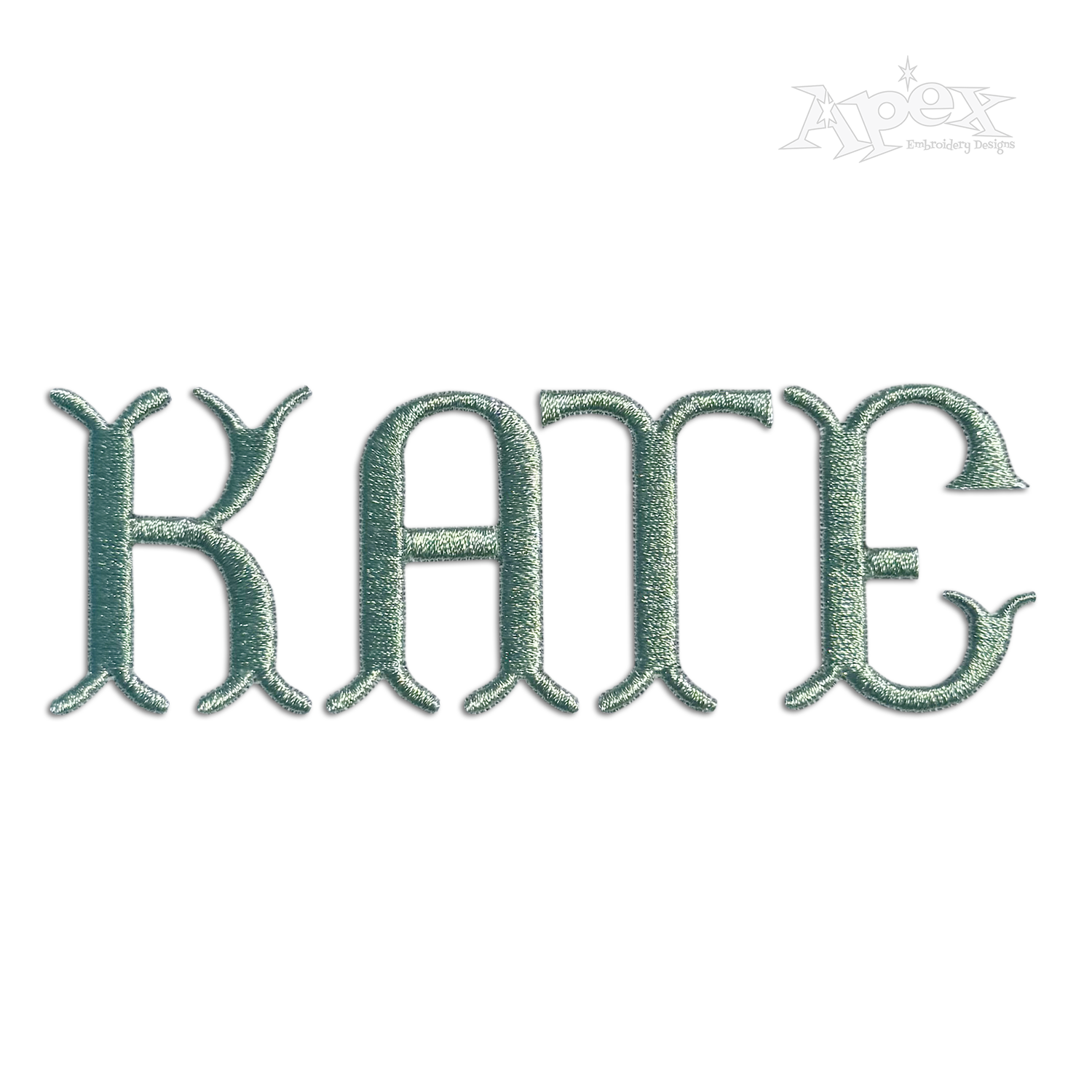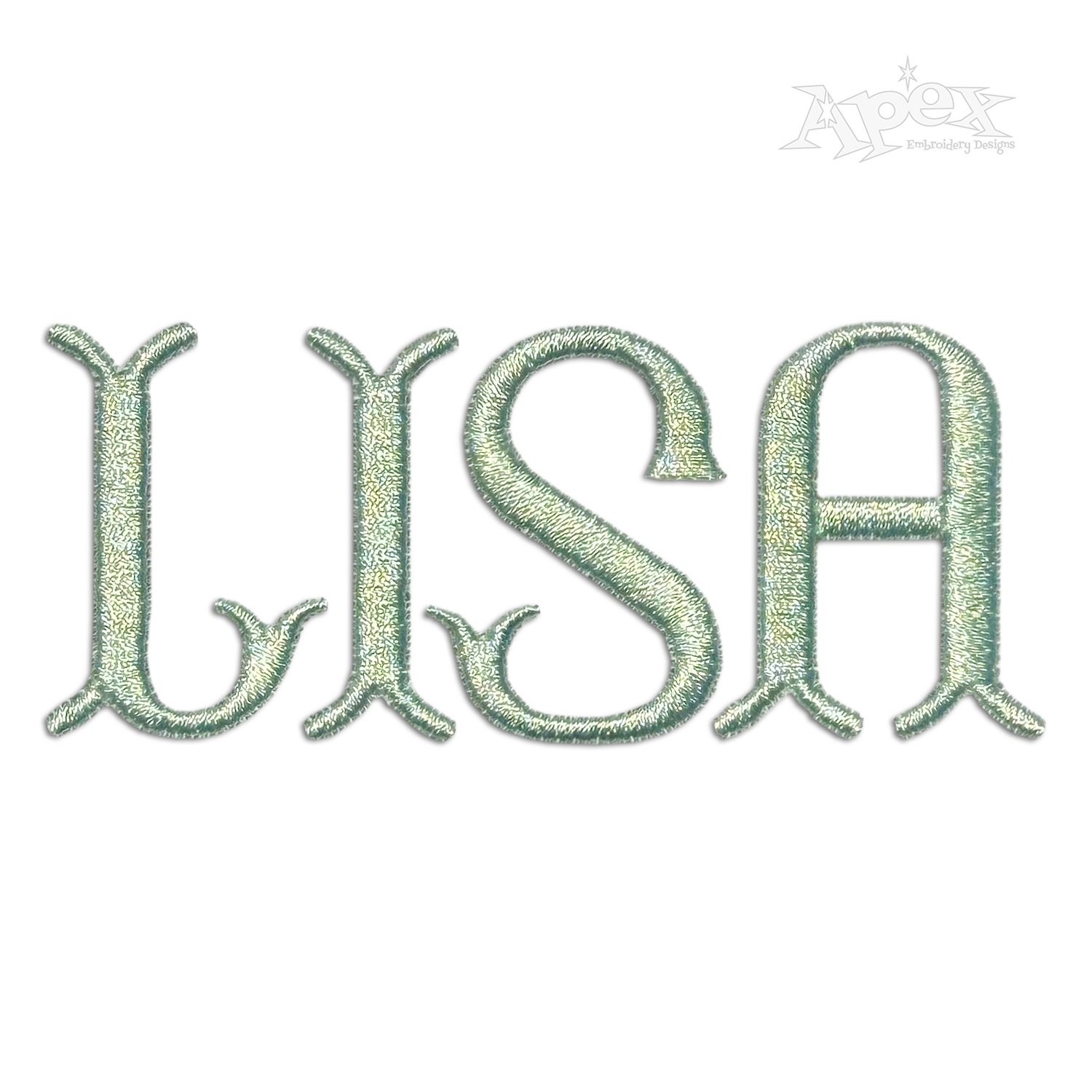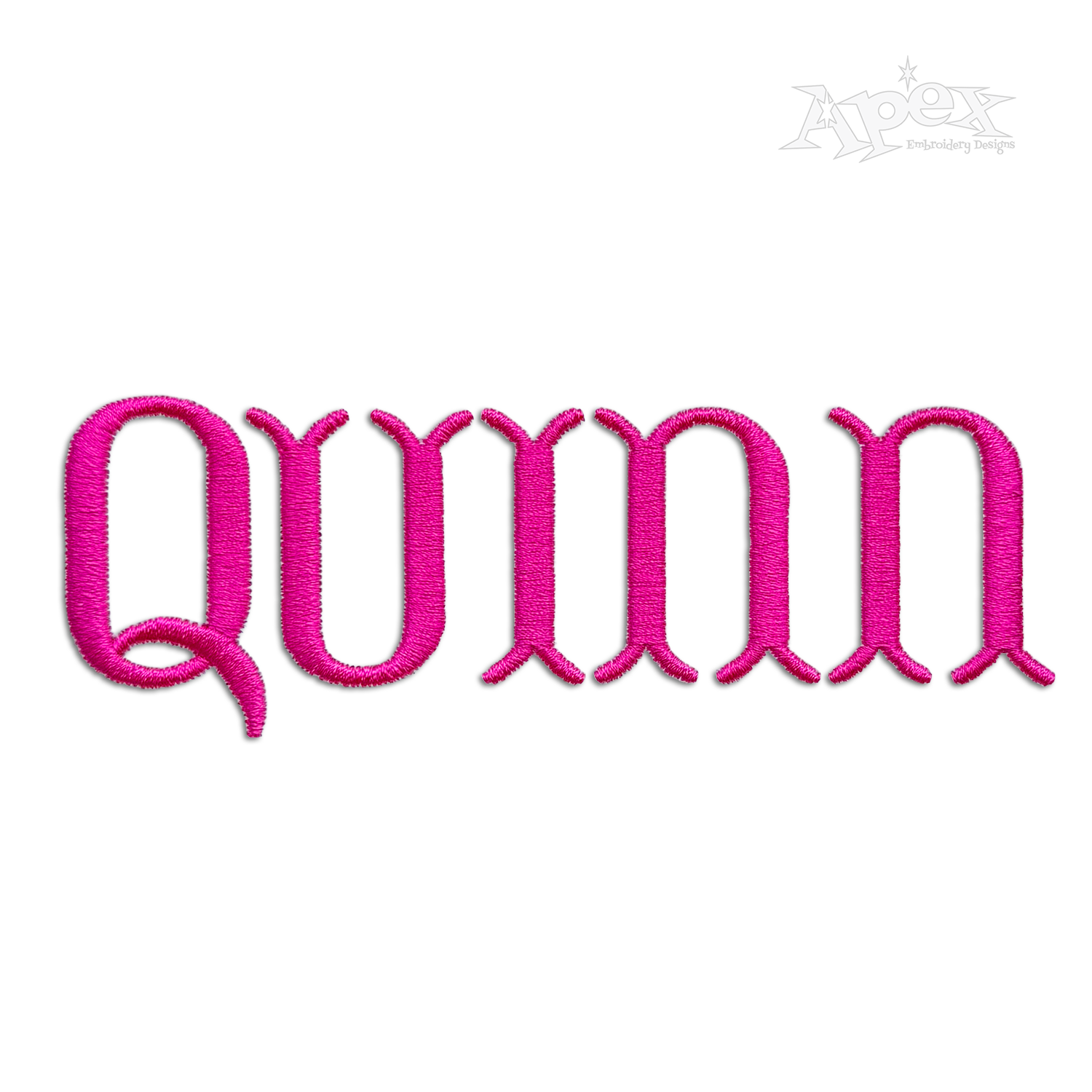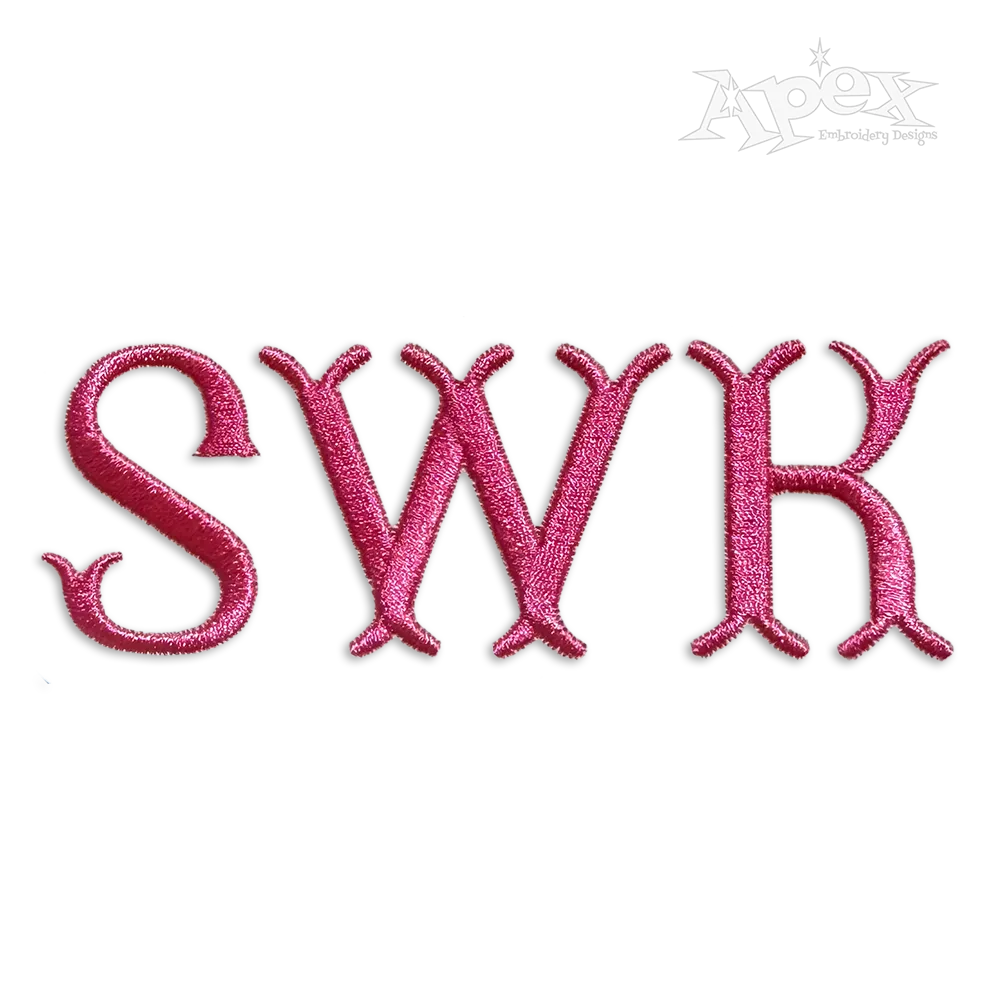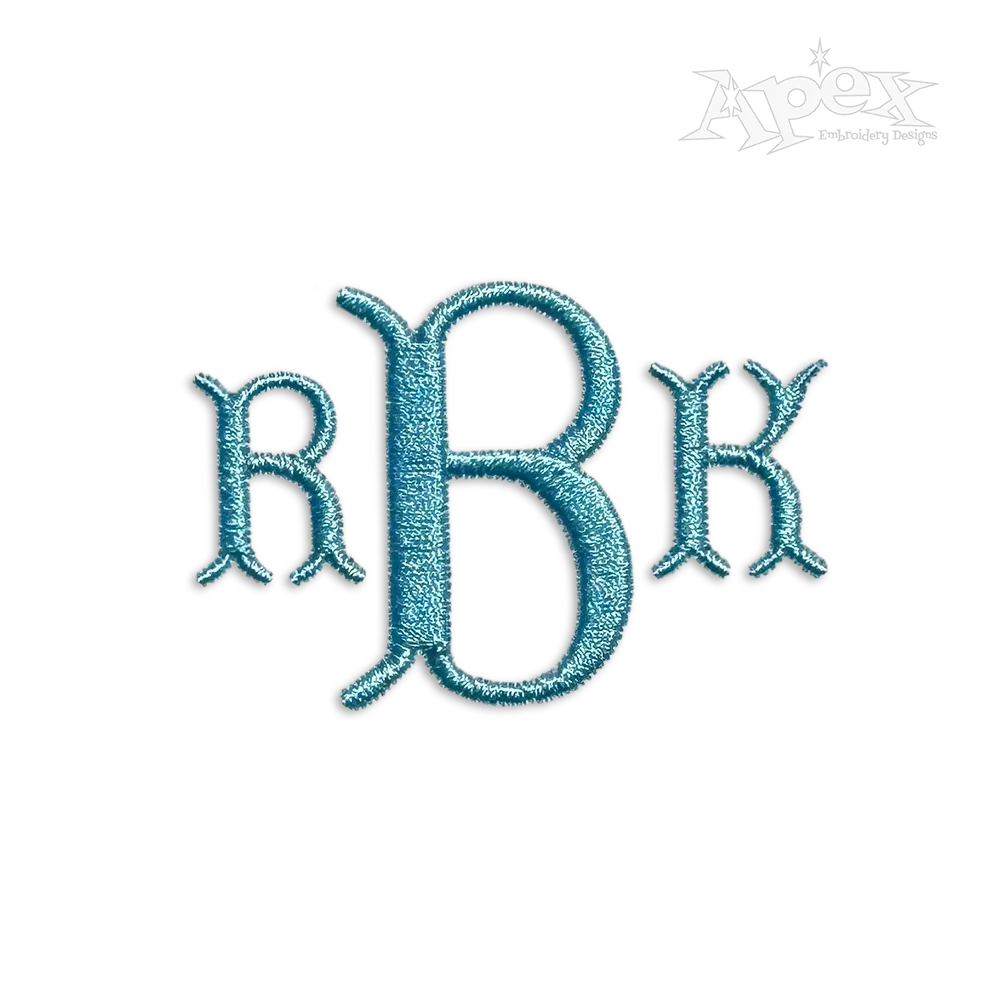
Wish Bone Monogram Embroidery font
There is an enduring charm to classic coastal monograms—the kind that feel effortlessly passed down across generations, whispering heritage on fine linen yet distinct enough to make a refined personal statement. Digitizing the Wish Bone Monogram was an exercise in balancing traditional fishtail typography with structural poise. Inspired by vintage bespoke stationery and southern heirloom linens, every stroke tapers gracefully before unfurling into signature split serifs reminiscent of wishbones and coastal flora. Crafted to capture light with a rich, luminous satin sheen, this alphabet transforms personalized gifting and custom monogramming into an authentic work of fiber art.
Wish Bone Monogram Craft & Letterform Details
True fishtail fonts require extraordinary digitizing finesse to prevent bunching at the fork of the serifs. In the Wish Bone Monogram, we plotted dynamic stitch angles that follow the organic flow of each stem, guiding the satin thread through sweeping turns without creating density hot-spots. The delicate wishbone flourishes feature tapered underlay stitching, ensuring the tiny decorative tips remain crisp, sharp, and perfectly defined on textured piques and open linen weaves alike. Even at the petite half-inch scale, the interior counter-spaces remain open and clean, while the 1.5-inch iteration delivers a plush, sculptural loft that turns light into an interactive design element.